Choosing the right font can transform your design from good to great. That’s why having a selection of top-notch fonts at your fingertips is essential for any aspiring designer. Luckily, Canva offers a variety of free fonts that can enhance your projects, whether you’re creating a business presentation, designing a flyer, or updating your blog. In this article, we’ll explore 15 essential Canva fonts that you can download for free. These fonts are versatile, easy to use, and perfect for giving your designs a professional and polished look.Â
1. Alegreya Sans
Why it is essential Free Canva font: Alegreya Sans is a humanist sans-serif typeface known for its readability and versatility. It’s an excellent choice for body text and provides a warm, engaging look, making it perfect for both print and digital media.
2. Arvo
Why it is essential Free Canva font: Arvo is a geometric slab-serif typeface, known for its versatility and clarity. It works exceptionally well for headings and print ads due to its sturdy nature and excellent readability, making it a robust choice for impactful designs.
3. Glacial Indifference
Why it is essential Free Canva font: This is a modern and minimalist sans-serif font. Its clean and unobtrusive appearance makes it perfect for contemporary designs, providing a sleek, professional look that works well in logos and headers.
4. Josefin Sans
Why it is essential Free Canva font: Inspired by vintage sans-serifs from the 1920s and 30s, Josefin Sans has a unique and elegant geometric style. It’s perfect for those looking to add a touch of sophistication to their designs, making it ideal for invitations and personal blogs.
5. Lato
Why it is essential Free Canva font: Lato is a sans-serif typeface family designed with corporate communications in mind. It conveys a feeling of warmth while maintaining a serious tone, making it perfect for business presentations and reports.
6. League Spartan
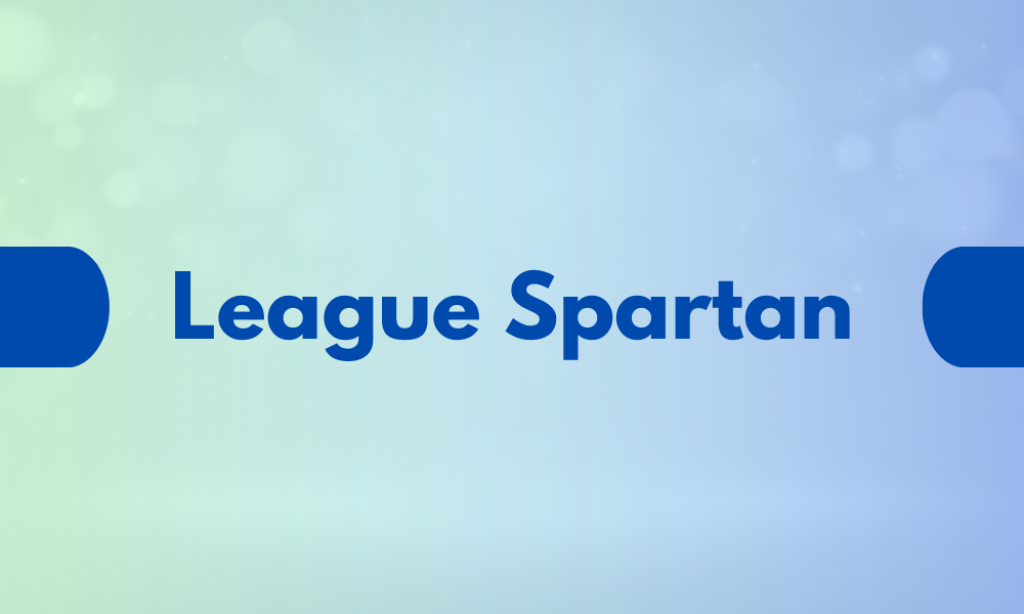
Why it is essential Free Canva font: A modern, bold, sans-serif that has a very strong presence. Its clean and commanding shape makes it ideal for impactful headlines and important calls to action.
7. Merriweather
Why it is essential Free Canva font: This serif font is designed to be highly readable on screens. With its varied weights and styles, Merriweather is excellent for lengthy text in blogs and e-books.
8. Montserrat
Why it is essential Free Canva font: Popular for its modern and geometric style, Montserrat is inspired by urban typography from the early 20th century. It’s perfect for signage, text in logos, and any place where you need your text to stand out.
9. Nixie One
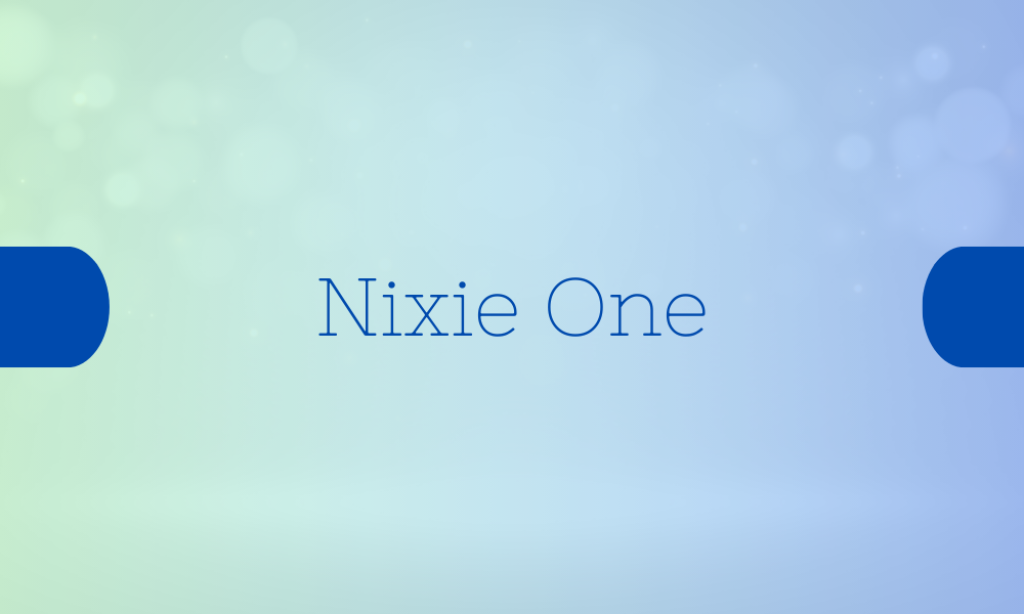
Why it is essential Free Canva font: Combining the charm of antique typefaces with the utility of modern sans-serifs, Nixie One offers a unique flair that’s ideal for decorative titles and sophisticated headers.
10. Open Sans
Why it is essential Free Canva font: Known for its open and neutral design, Open Sans is incredibly versatile and readable. It’s a friendly font that’s ideal for both digital and print layouts, ensuring legibility and a professional appearance.
11. Oswald
Why it is essential Free Canva font: Re-drawn and reformed to better fit the pixel grid of standard digital screens, Oswald is great for titles and headers in web design. Its condensed style allows for impactful headlines without taking up much space.
12. Playfair Display
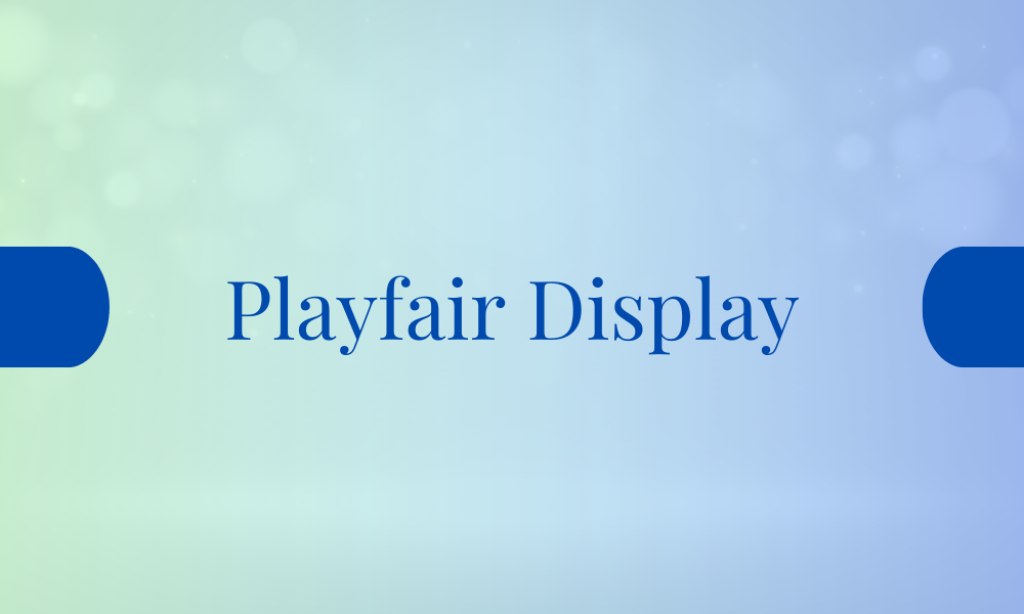
Why it is essential Free Canva font: With its high-contrast letterforms and distinctive style, Playfair Display is ideal for titles and headlines, particularly in stylish, upscale, and sophisticated contexts.
13. Poppins
Why it is essential Free Canva font: One of the newer fonts on the scene, Poppins brings a modernist flair with its geometric shapes. It’s perfect for interface design and displays a crisp, clean professionalism that suits modern aesthetics.
14. Raleway
Why it is essential Free Canva font: Originally designed as a single-weight typeface, Raleway has expanded into a nine-weight family. Its elegant yet simple styling makes it perfect for a wide range of applications, from marketing materials to website headings.
15. Roboto
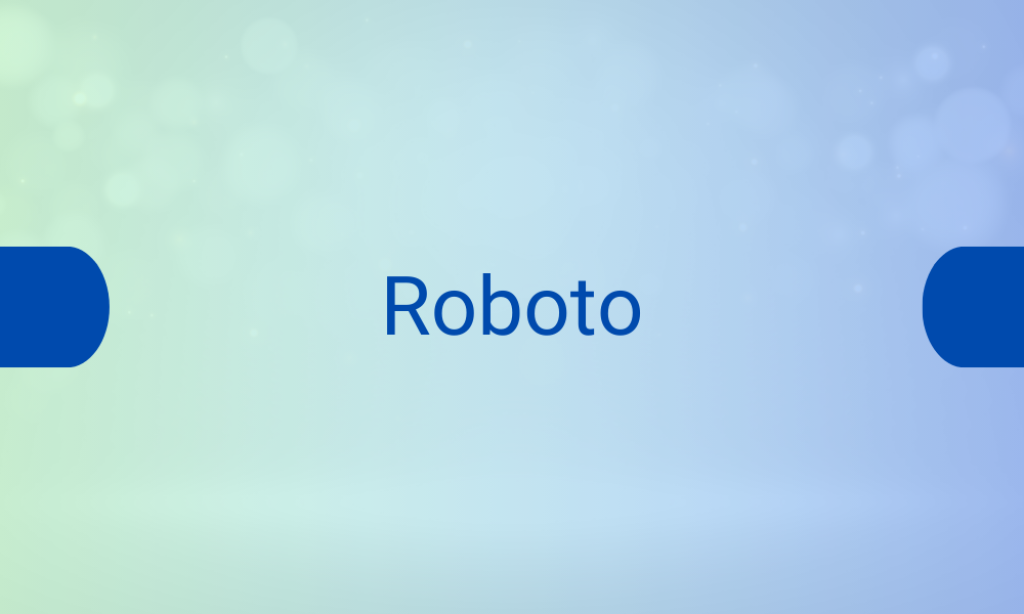
Why it is essential Free Canva font: Roboto offers a mechanical skeleton and largely geometric forms. Its open curves and natural reading rhythm make it extremely legible, which is why it’s favored for Android and other mobile operating systems.